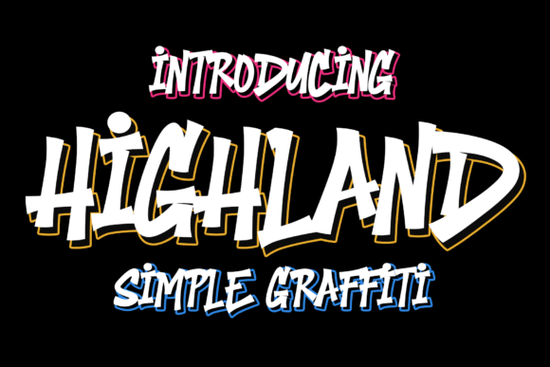
Highland Font is a standout choice for anyone looking to add an edgy, urban vibe to their design projects. Whether you're creating logos, posters, or branding materials, this display font brings a bold and dynamic presence that commands attention. Its graffiti-inspired style makes it perfect for modern streetwear, sports graphics, and high-energy marketing campaigns.
Designed with a clean white inner fill and a sharp black stroke, Highland Font has a strong visual impact that’s both professional and expressive. The multi-layered yellow and black drop shadow adds depth, making the letterforms pop off the page. This combination of simplicity and dimensionality gives the font a unique character that’s hard to replicate with other typefaces.
If you’re working on a project that needs a sense of movement and attitude, Highland Font could be the perfect fit. It’s ideal for designers who want to convey energy and confidence in their work. From skate shop logos to gaming stream overlays, this font offers versatility without sacrificing style.
What Makes Highland Font Stand Out?
One of the key features of Highland Font is its hand-carved block letterforms. These shapes mimic the look of classic street art markers, giving your designs a raw and authentic feel. The angular strokes and confident lines make it easy to create visuals that feel powerful and intentional.
The font’s design also allows for clear readability, even at larger sizes. This means you can use it for headlines, banners, and other prominent design elements without worrying about legibility. It’s a great balance between artistic expression and functional typography.
Another advantage of Highland Font is its adaptability. While it has a strong urban aesthetic, it can also work well in more refined contexts when paired with the right color schemes and layouts. This flexibility makes it a valuable addition to any designer’s toolkit.
Who Can Benefit from Using Highland Font?
Designers working on streetwear branding will find Highland Font particularly useful. Its bold style aligns well with the energetic and rebellious spirit of modern fashion. Whether you’re designing t-shirts, hoodies, or accessories, this font can help you create a cohesive and eye-catching brand identity.
Crafters and print-on-demand sellers can also benefit from using Highland Font. It’s great for adding a unique touch to custom products like mugs, posters, and stickers. Its striking appearance ensures that your designs stand out in a competitive market.
Small businesses looking to establish a strong visual presence may find Highland Font helpful for their marketing materials. From social media graphics to event flyers, this font can add a fresh and contemporary look to your promotional content.
How to Use Highland Font Effectively
When using Highland Font, consider the context of your design. It works best in projects that require a strong visual statement. Pair it with simple backgrounds and limited color palettes to let the font take center stage.
Experiment with different sizes and placements to see how it interacts with other elements in your layout. You can use it for headings, subheadings, or as a decorative element in your compositions.
Whether you're a designer, crafter, or small business owner, Highland Font offers a powerful way to express your creative vision. With its bold style and versatile applications, it’s a valuable asset for any project that needs a strong visual impact.